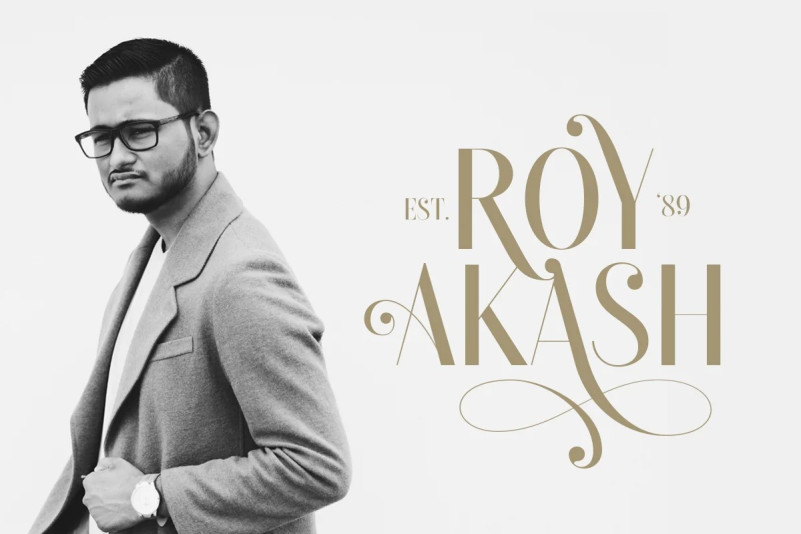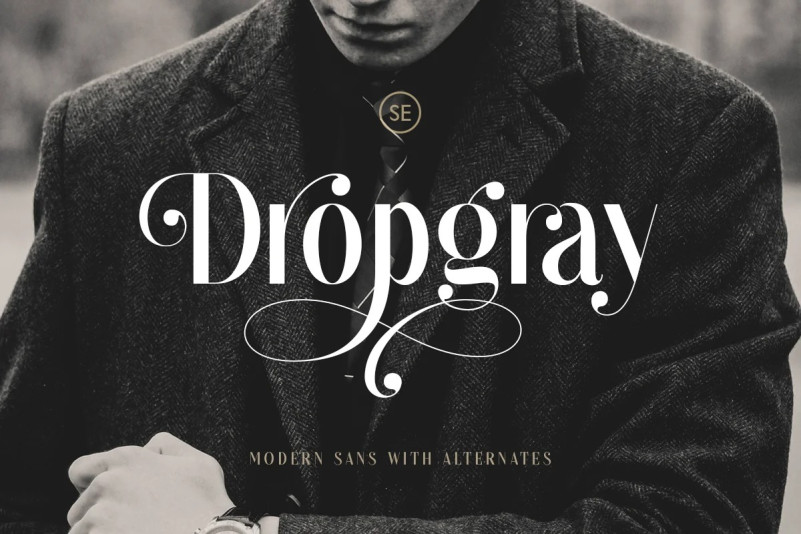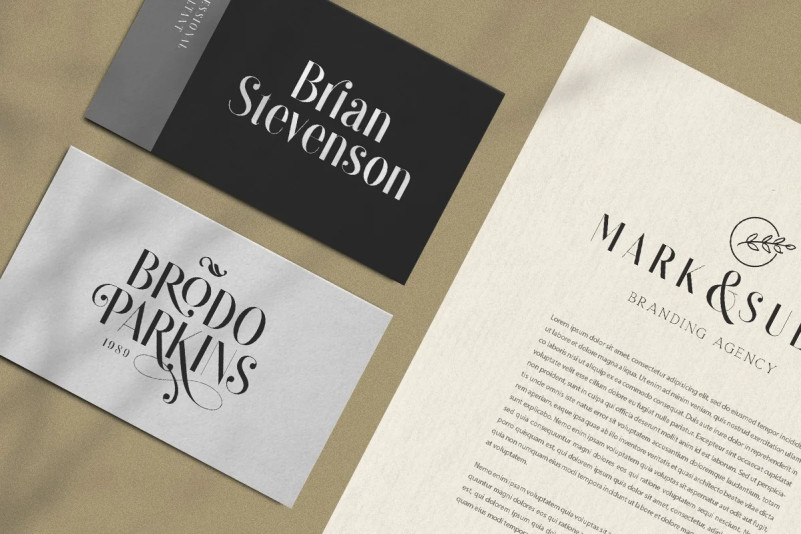
Dropgray Font
Dropgray Sans Serif Font is a minimalist and elegant sans serif with a bunch of alternates that will make your presentation or logo even more stunning and stand out! Dropgray also support Multi Language. and already PUA Encoded!